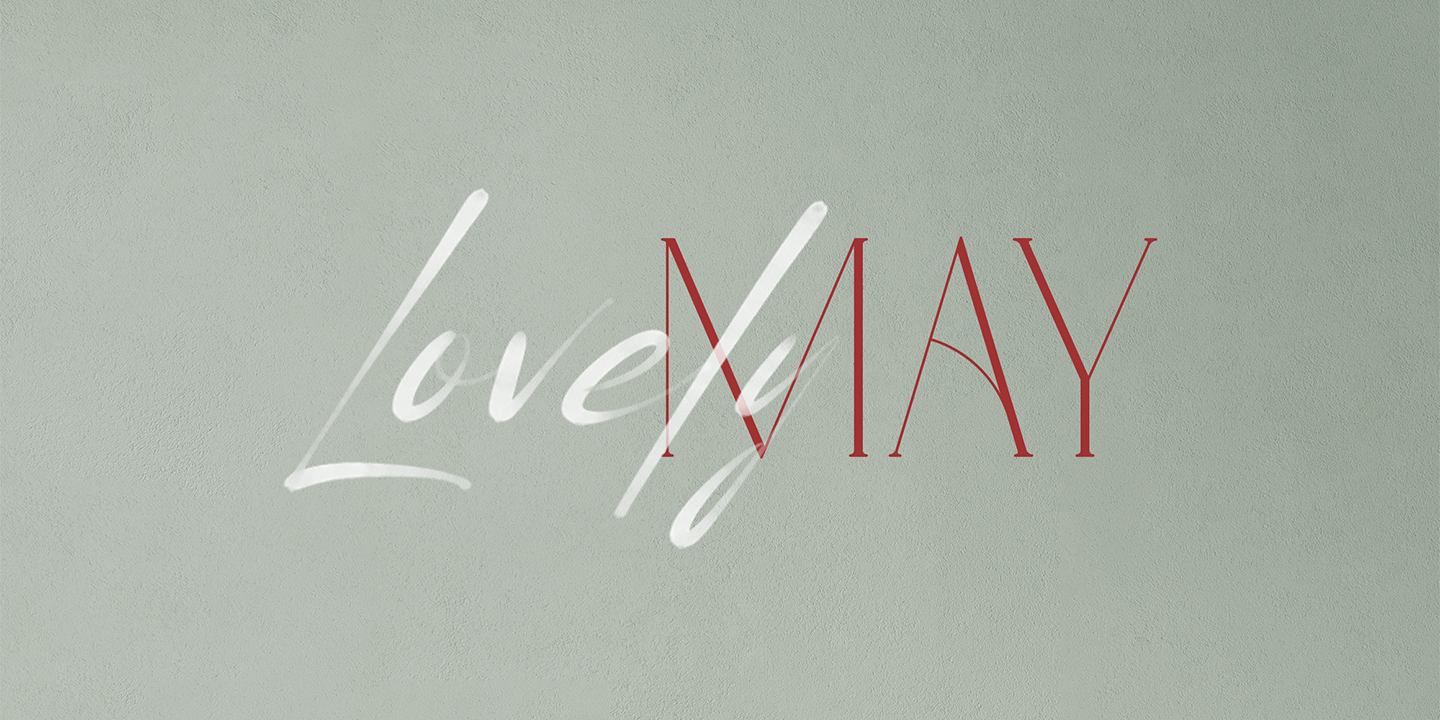
Lovely May Font is perfect for a wide range of design applications including spring-themed branding, romantic wedding invitations, children's book illustrations, greeting card designs, feminine logos, boutique branding, social media graphics, nursery decorations, craft projects, and seasonal marketing campaigns. This charming typeface excels in projects that require a gentle, approachable aesthetic while maintaining readability and professional quality across various creative applications.
What makes Lovely May Font truly exciting is its delightful combination of playful charm and sophisticated elegance that captures the essence of springtime romance and fresh beginnings. The font features soft, rounded letterforms with gentle curves and subtle flourishes that create a sense of warmth and approachability. Its organic, hand-crafted appearance makes it an exceptional choice for designers who want to convey friendliness, creativity, and personal touch while maintaining professional standards. The font's distinctive character helps create memorable brand experiences that resonate with audiences seeking authentic, heartfelt communication.
The Lovely May Font family typically includes multiple weights and stylistic variations, often featuring regular and bold versions along with decorative elements and alternative characters. The family may include swash variants, contextual alternates, and ornamental flourishes that enhance the font's handcrafted authenticity. Some versions offer additional ligatures, initial caps, and ending swashes that provide designers with extensive creative flexibility for feminine and romantic brand applications.
When searching for a typeface that embodies warmth and creative expression, Lovely May Font Free Download offers designers access to premium script typography that perfectly captures the spirit of handmade artistry and personal connection. This font has gained popularity among small business owners, creative entrepreneurs, and design professionals who appreciate its ability to convey approachability and artistic quality in their visual communications.
The font's versatile construction makes it particularly effective for brands in the lifestyle, craft, children's products, and creative services industries where emotional connection and personal touch are essential. Its excellent legibility at various sizes ensures optimal performance across different applications, from large-scale signage to detailed product labels. The comprehensive character set includes essential punctuation, numerals, and special characters that support diverse typographic needs.
Lovely May Font demonstrates exceptional attention to detail in its handcrafted aesthetic, with consistent flow, balanced proportions, and refined letterforms that create harmonious visual storytelling. Whether you're developing boutique branding, designing seasonal promotions, or creating personalized stationery, this font provides the charm and reliability that successful creative projects require.
The font's timeless appeal ensures lasting relevance while its distinctive personality helps brands establish warm, authentic connections with their target audiences.